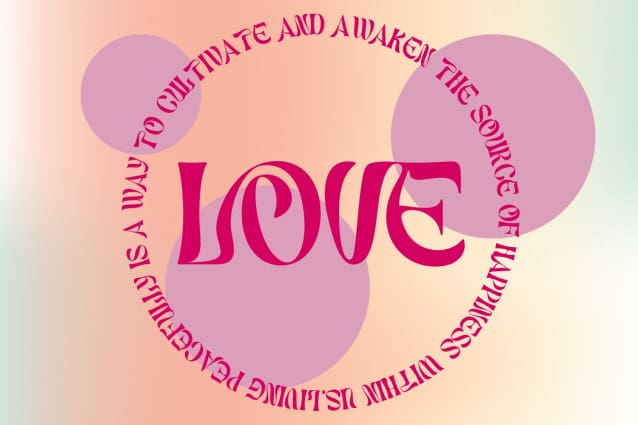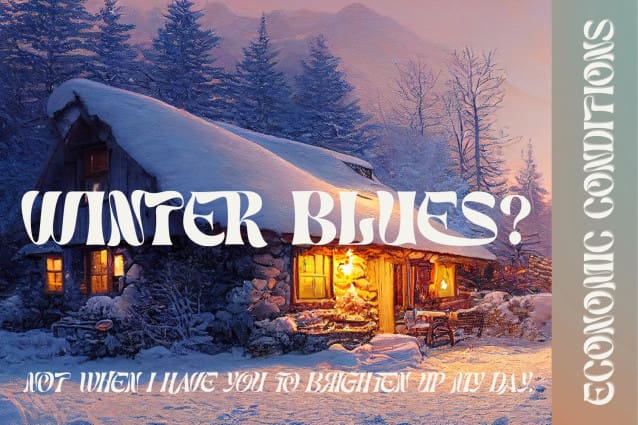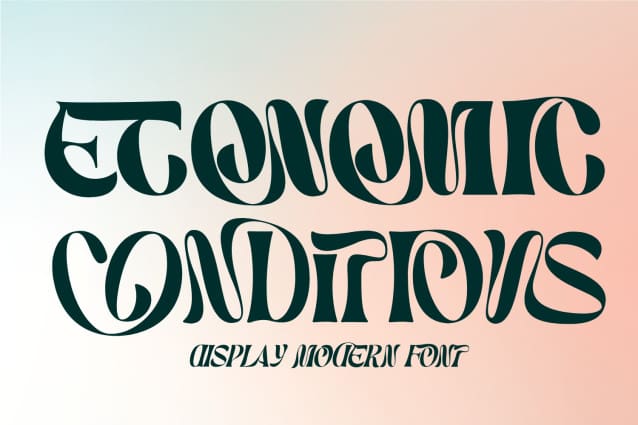
Economic Conditions Font
Economic Conditions Font is a psychedelic style inspired typeface. This font has energetic and abstract characteristics with a contemporary design perspective, offering a captivating visual experience, making it a valuable tool for designers who want to infuse their projects with a sense of adventure and creative experimentation. Unique tripped out lettering makes this font perfect for those band poster, trippy logos, funky posters, quotes and more.
Economic Conditions was built with OpenType features and includes 100 ligatures, alternate, numbers, punctuation, and it also supports other languages.
AC AD AL AN AR AS AT AU AV BE CA CE CH CO CT DE DI EA EC ED EE EL EM EN EP ER ES ET FE FO FR GE HA HE HI HO IE IC IL IN IO IR IS IT JU KE LA LE LI LL LO LY MA ME MI NC ND NE NG NO NT NS OC OF OM ON OO OP OR OT OU OW PA PR RA RD RE RI RO RS RT SE SH SI SO SS ST TA TE TH TI TO TR TT UM UN UR VE WI WO